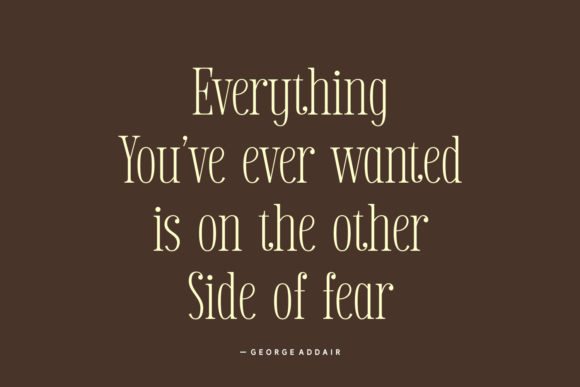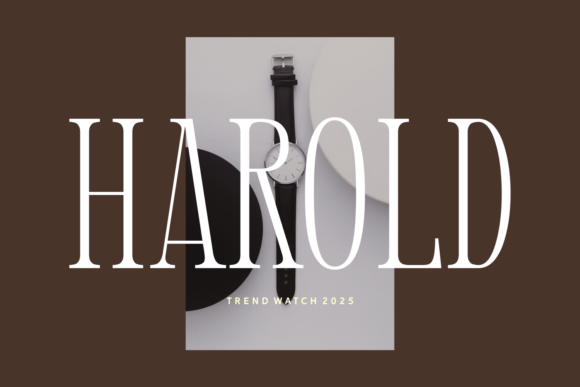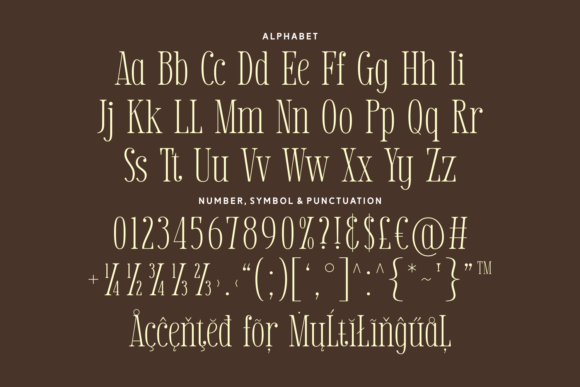
Introduction to Salvina Font
Imagine you’re working on a high-end beauty campaign, and you need a font that exudes luxury and sophistication. You scroll through your design resource library, searching for the perfect match, but nothing seems to capture the essence of elegance and high fashion. That’s where Salvina Font comes in – a modern serif font that instantly elevates any creative project to the next level.
With its ultra-tall letterforms, refined serifs, and delicate curves, Salvina Font is the epitome of high-quality design. Its slender strokes and bold verticals create a striking contrast that adds drama and sophistication to any text. Whether you’re working on a magazine headline, a beauty campaign, or an upscale branding project, Salvina Font is the perfect choice to give your design a touch of refinement and poise.
Key Features of Salvina Font
- High-quality design: Salvina Font is designed with precision and attention to detail, making it perfect for any creative project.
- Transparent background: This feature allows for seamless integration with any design or background, giving you more creative freedom.
- Resolution-independent: Salvina Font is designed to be resolution-independent, ensuring that it looks great at any size or resolution.
- Unique characteristics: The Salvina Font features a unique blend of modern and elegant design elements, making it perfect for a variety of creative projects.
- Size: The font family includes multiple weights, from Thin to Bold, giving you a wide range of options for your design project.
Honest Review: Salvina Font
I recently had the opportunity to work with the Salvina Font, and I must say it’s been a delightful experience. As a designer, I’m always on the lookout for high-quality design resources that can elevate my creative projects. The Salvina Font definitely delivers.
- ✨ The font’s transparent background makes it incredibly versatile, allowing me to easily layer it over images or use it as a standalone design element.
- ✨ The font’s elegant and sophisticated design makes it perfect for a wide range of creative projects, from wedding invitations to branding materials.
However, I do have a few minor complaints ⚠️. The font’s limited character set can make it difficult to use for longer blocks of text. Additionally, the font’s bold weight can sometimes feel a bit too bold, making it difficult to read at smaller sizes.
Overall, I’m really impressed with the Salvina Font. Its high quality and versatility make it a great addition to any designer’s toolkit. While it may have a few limitations, I believe the benefits far outweigh the drawbacks. I’d highly recommend it to anyone looking for a beautiful and effective font for their creative project.
Tips for Getting the Most Out of Salvina Font
Use the Salvina Font in combination with other design elements, such as images or shapes, to create a visually appealing design. Experiment with different font sizes, colors, and styles to find the perfect combination for your creative project.
The Salvina Font is suitable for a variety of creative projects, including logos, brochures, business cards, and social media graphics. Its high quality and transparent background make it a great design resource for designers and non-designers alike.